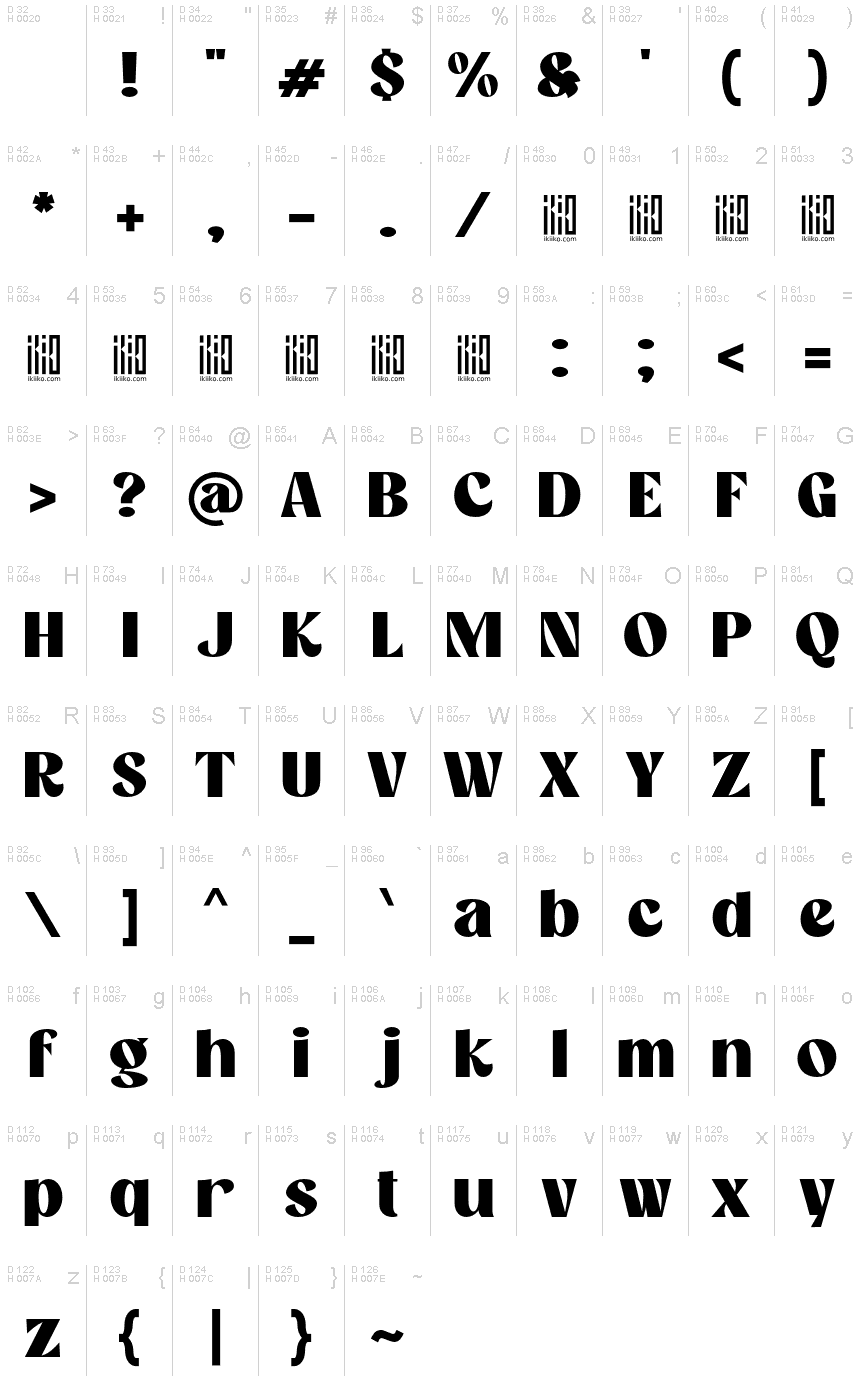
Camera Obscura emerges as a visually captivating display font, masterfully crafted by the innovative Ikiiko Type. Its extra-bold weight commands attention, while its retro style harkens back to an era of timeless charm. The font's robust character forms and playful geometry make it an ideal choice for projects that require a touch of nostalgia paired with a modern twist.
The Camera Obscura font boasts thick, assertive lines that are both readable and aesthetically pleasing. Its unique design elements reflect the sophistication of vintage aesthetics yet remain versatile for contemporary applications. Whether it's deployed on poster designs, impactful headlines, or branding materials, Camera Obscura stands out as a dynamic tool in any designer's arsenal.
With its distinctive personality and flair for the dramatic, this typeface is particularly suited to creative endeavors that seek to make a bold statement. Camera Obscura is not just another retro font; it is a declaration of style that resonates with audiences across diverse visual landscapes.